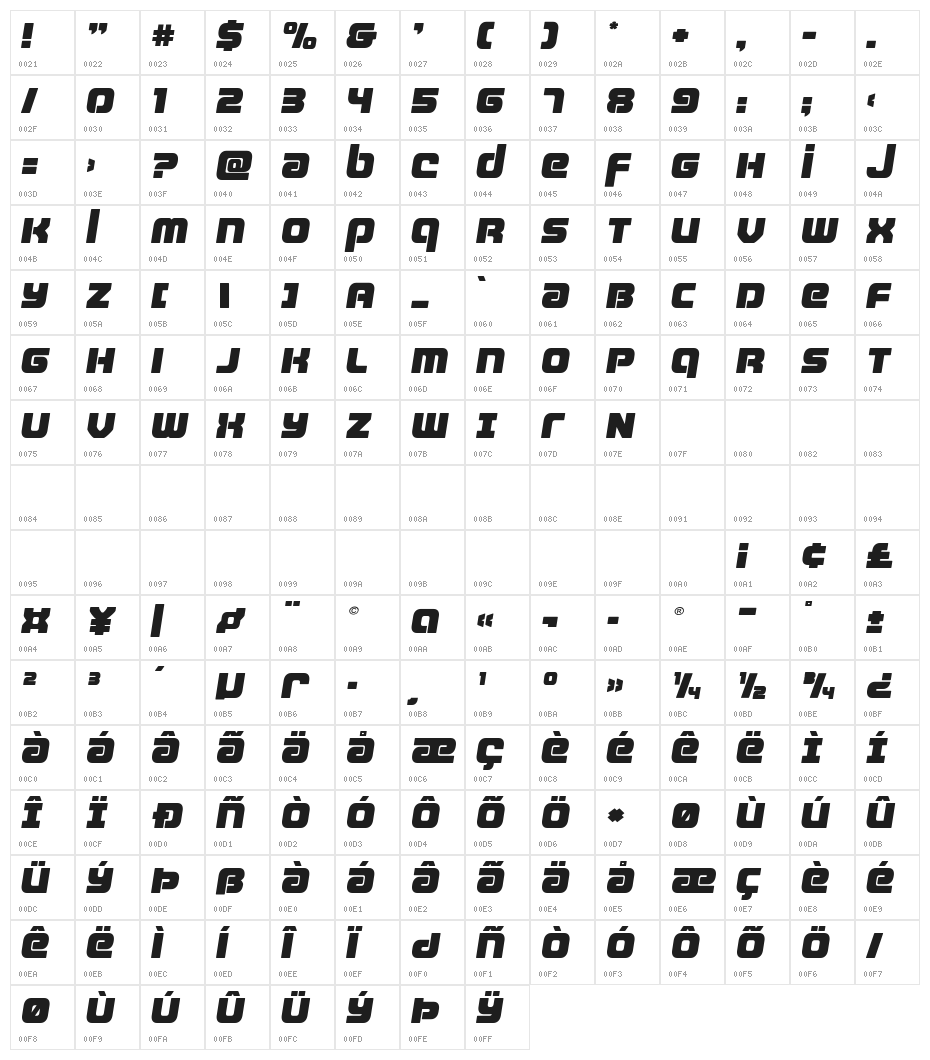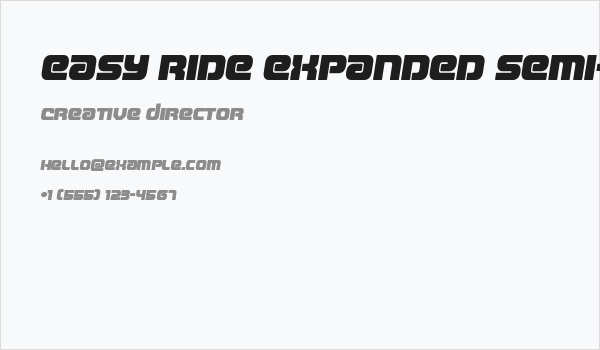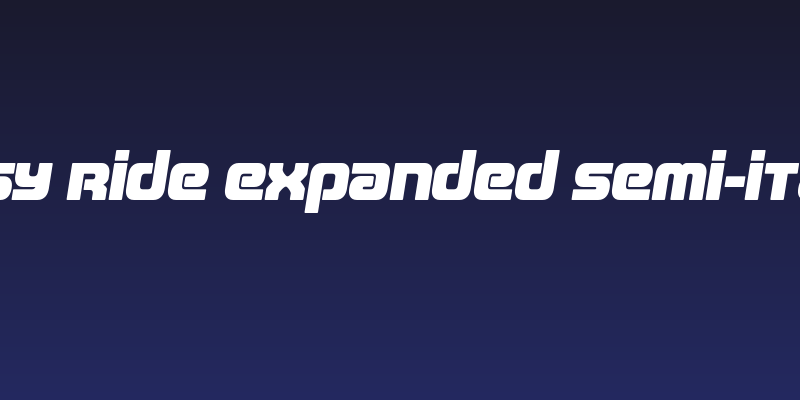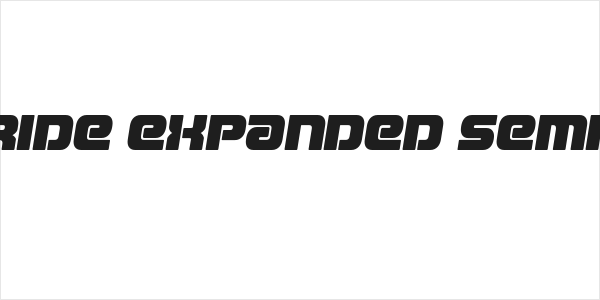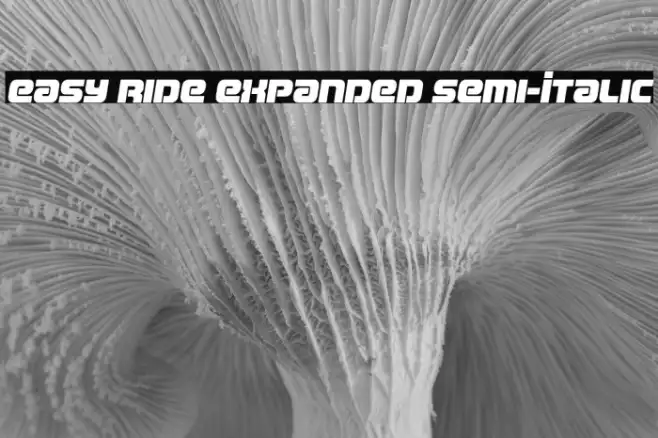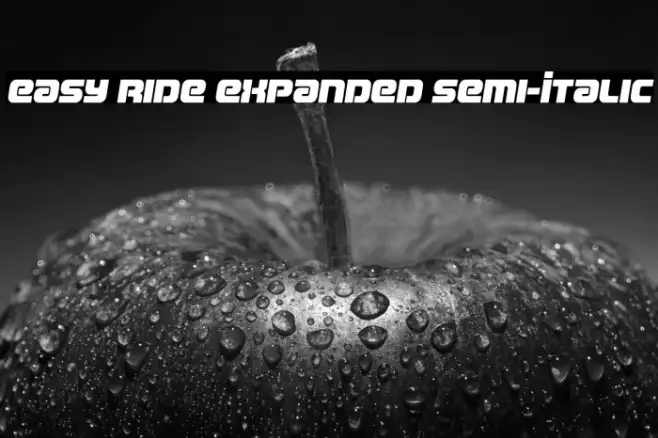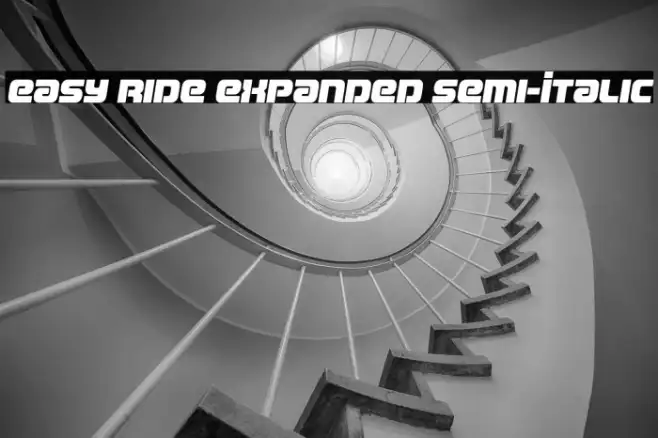
Easy Ride Expanded Semi-Italic Font
Easy Ride Expanded Semi-Italic Description
This font features a bold and dynamic style with a semi-italic slant, giving it a sense of movement and energy. The characters are expanded, providing a wide and impactful appearance. The design incorporates smooth curves and sharp angles, creating a modern and futuristic look. The uppercase and lowercase letters maintain consistency in style, while the numerals and special characters complement the overall design. This font is suitable for projects that require a bold statement and a contemporary feel.
| Proposed Projects | Ideal for branding, sports team logos, automotive designs, and dynamic advertising. |